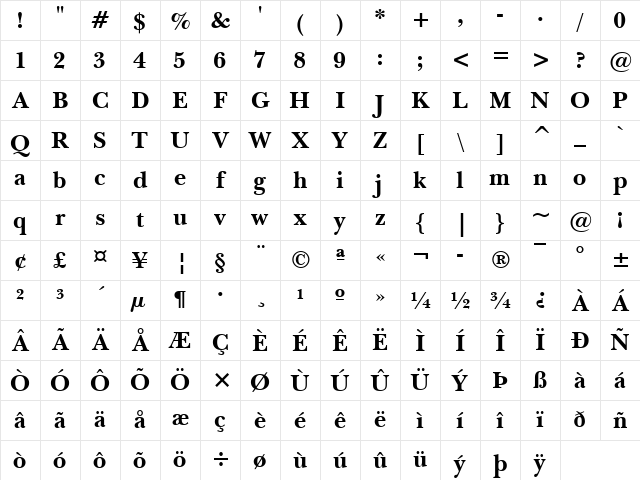
Baskerville Win95BT Bold
Design Context for Baskerville Win95BT
Baskerville Win95BT is a composed and adaptable typeface that performs quietly and consistently across a wide range of design contexts. Its bold stroke weight gives it real presence on the page.